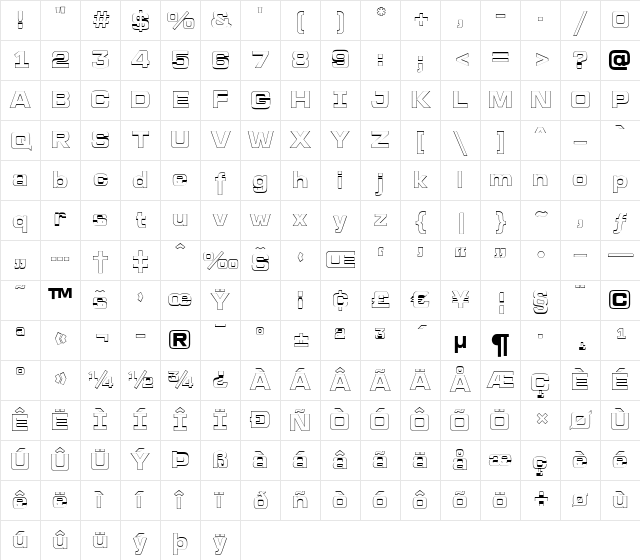
a_LineaSansOtl Bold
Designer: W.Chufarofsky & M.Slutsker
Design Context for a_LineaSansOtl
a_LineaSansOtl is a composed and adaptable typeface that performs quietly and consistently across a wide range of design contexts. Its bold stroke weight gives it real presence on the page.